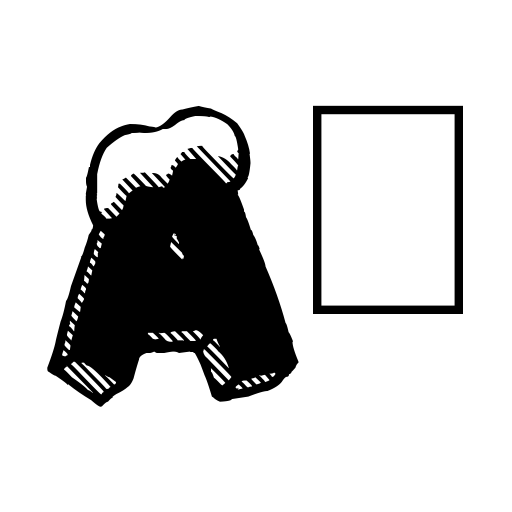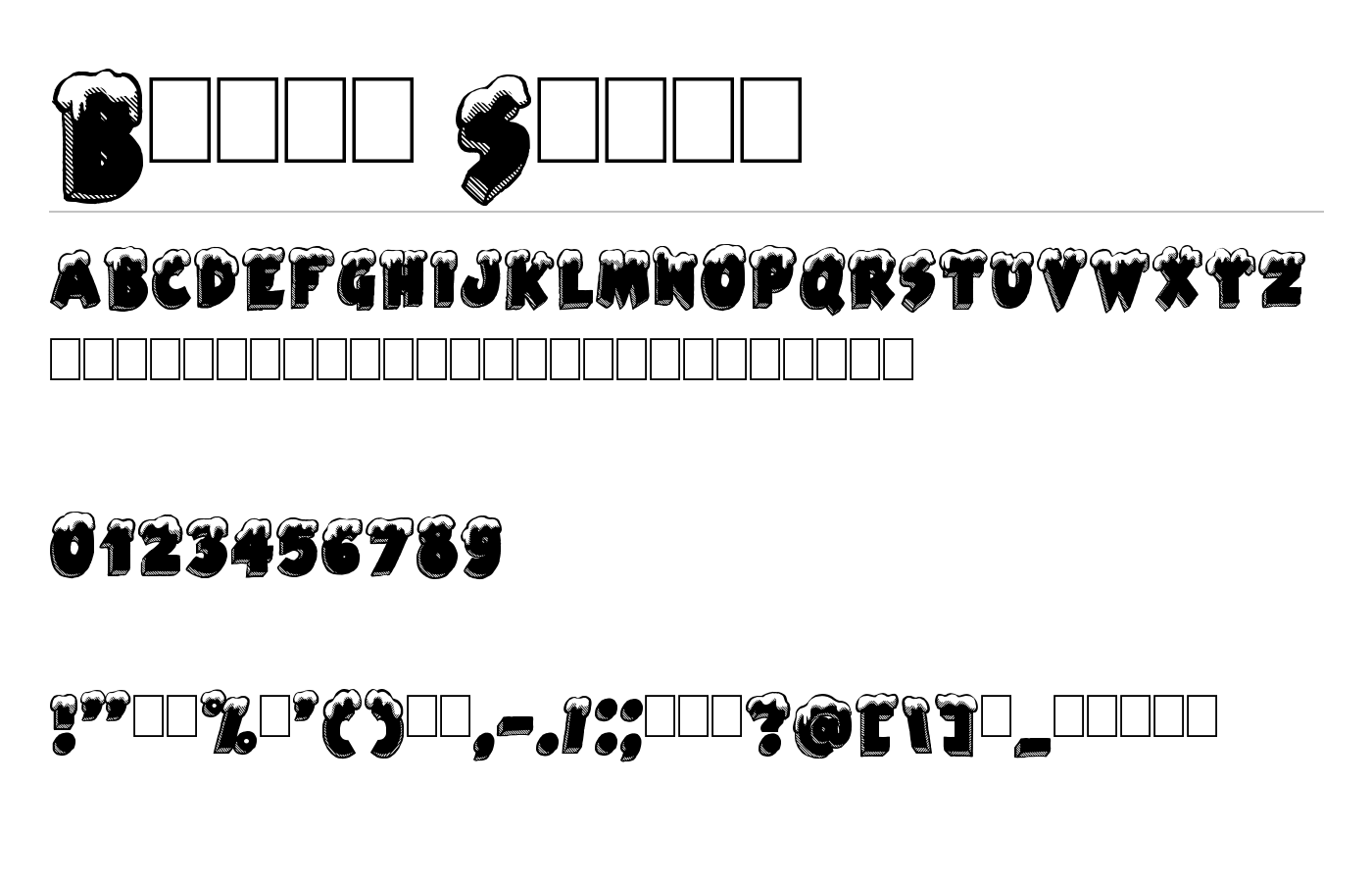
Black Santa Font is a bold, playful display typeface characterized by chunky, rounded shapes topped with whimsical snow caps that evoke a festive, wintery mood. Its heavy weight and cartoonish style make it perfect for holiday-themed designs, packaging, and cheerful headlines where a fun and lively atmosphere is desired. This font’s unique decorative details bring a joyful and approachable personality, ideal for seasonal branding and festive graphics.
Black Santa Font
About Black Santa Font
| Font family | Black Santa Font |
| Designer | Imagex |